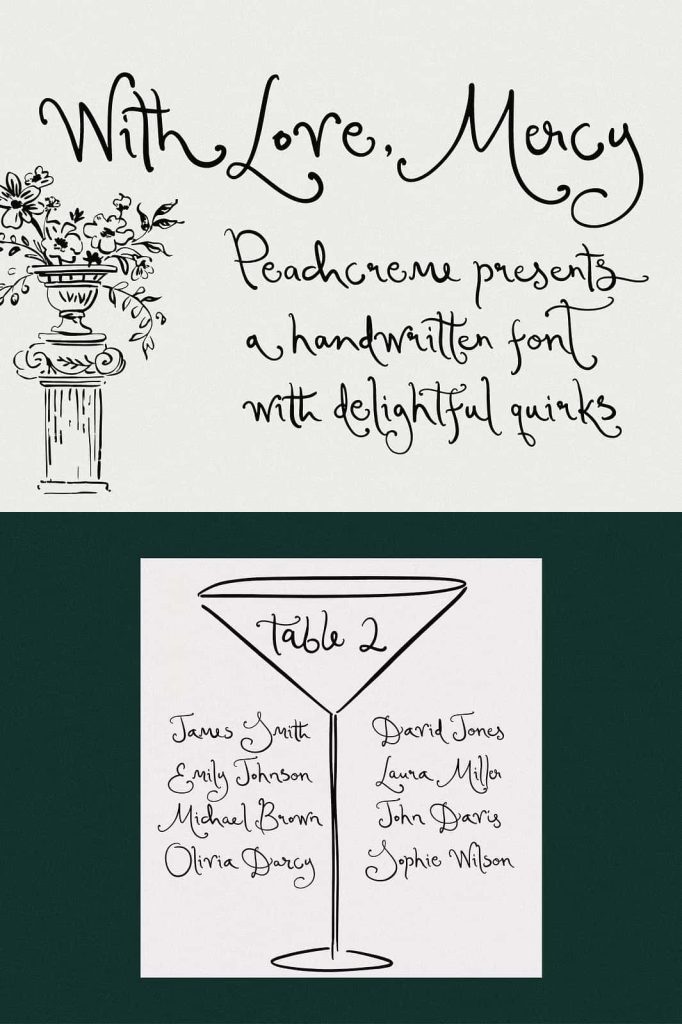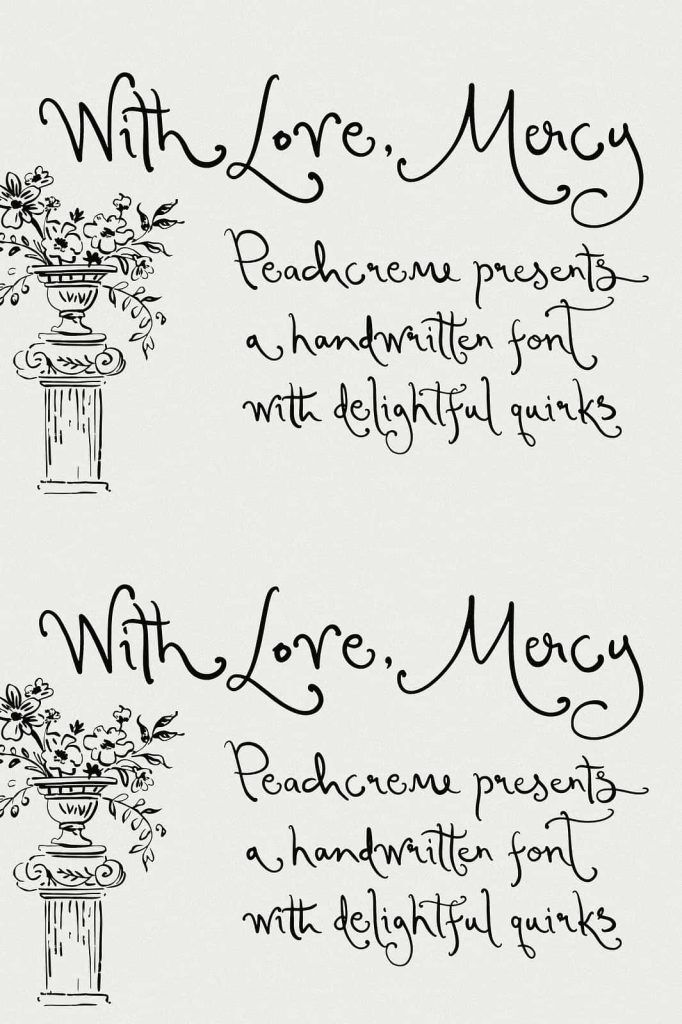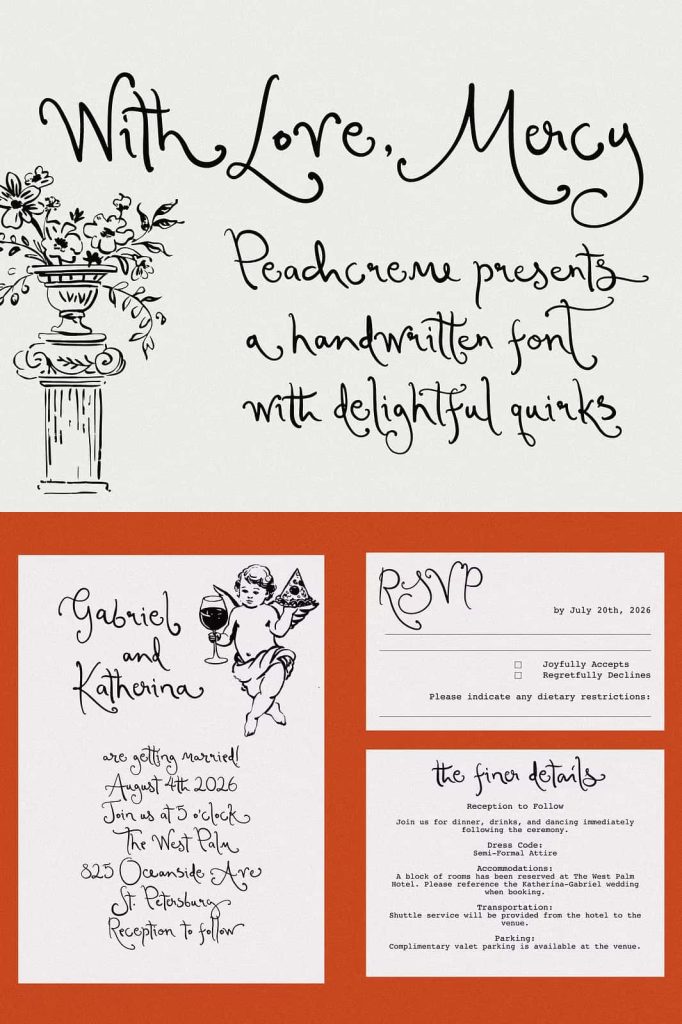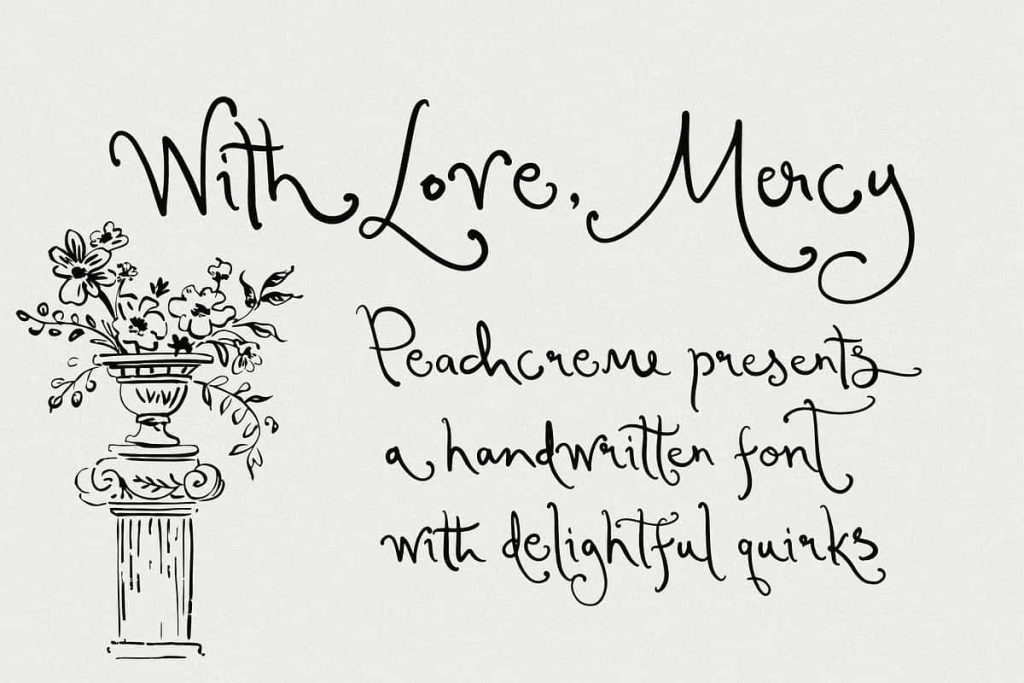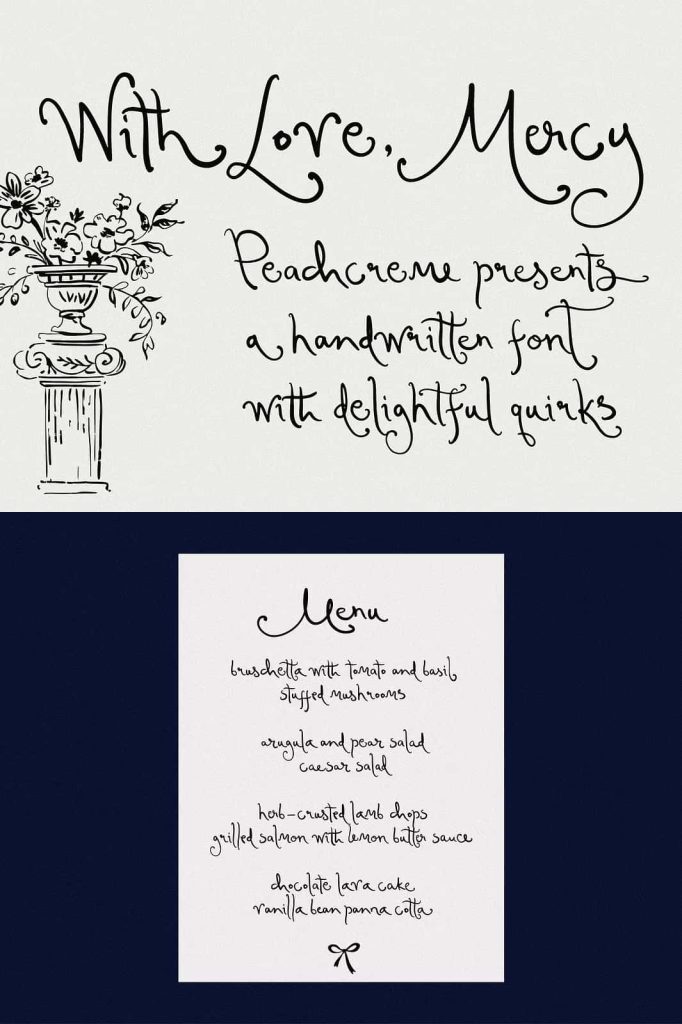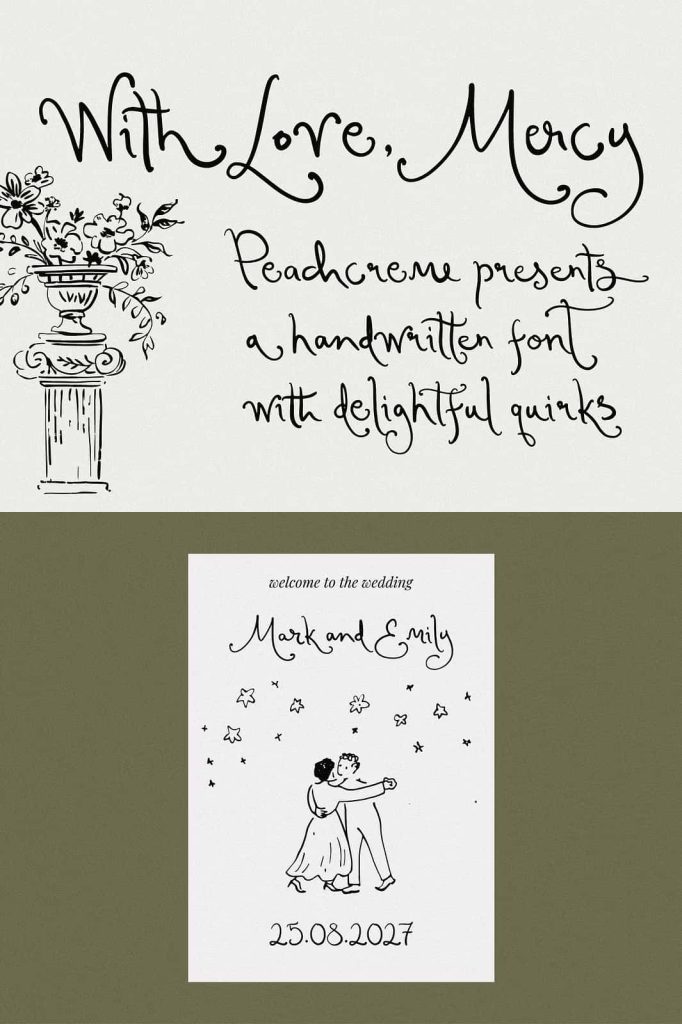
Introducing “With Love, Mercy” by Peachcreme—a whimsical and playful handwritten font that stands out with its quirky and irregular letter shapes and directions. This font doesn’t follow traditional rules, making it a unique addition to your font collection.